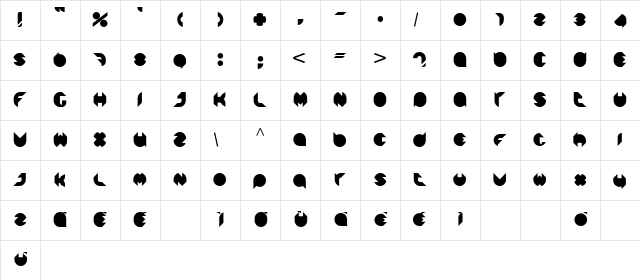
Paula Regular Free Font
Paula Regular
Foundry: no.parking
Designer: no.parking
Design Context for Paula
Paula is a composed and adaptable typeface that performs quietly and consistently across a wide range of design contexts.